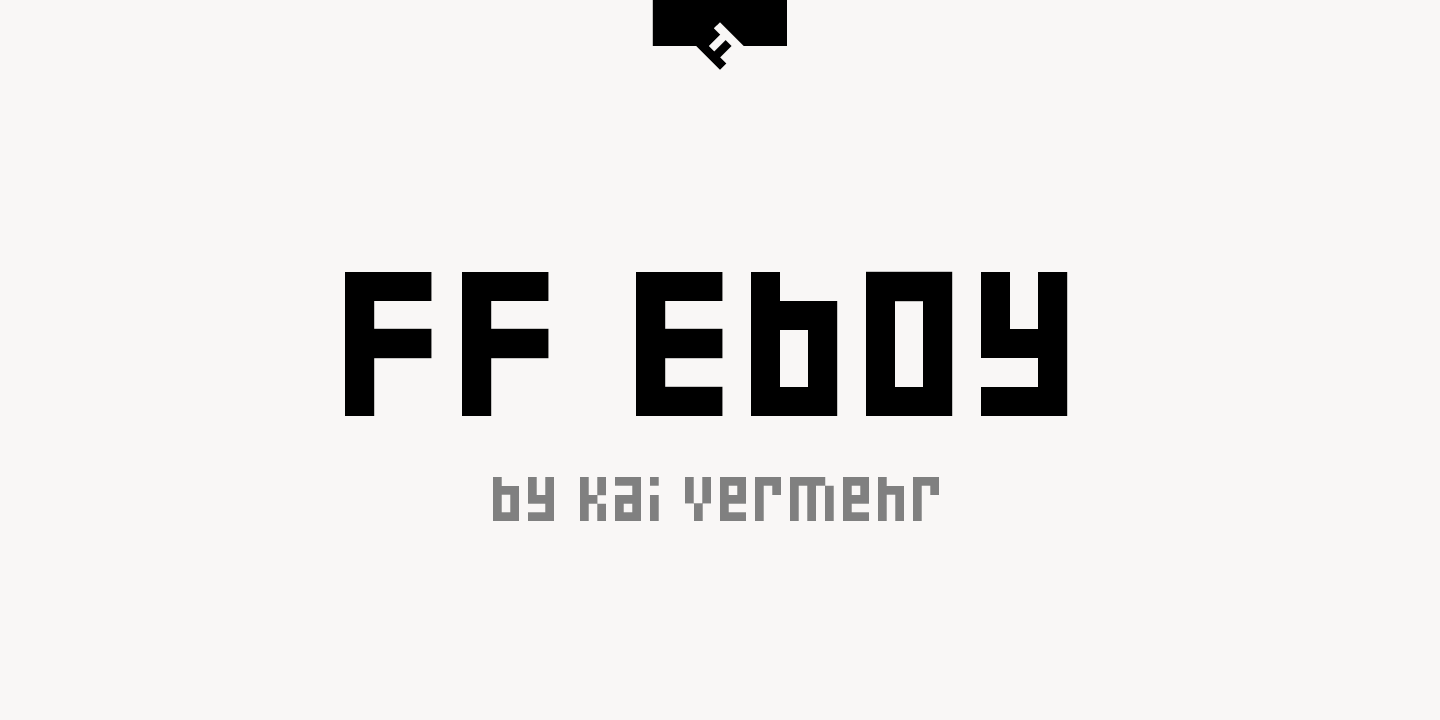
FF Eboy Font is perfect for retro gaming interfaces, pixel art projects, 8-bit video game titles, nostalgic technology branding, digital art exhibitions, indie game development, and cyberpunk aesthetic designs that require authentic pixelated typography.
This font is exciting because it captures the raw energy and digital rebellion of early computer culture, featuring blocky, pixelated letterforms that convey technological nostalgia, digital authenticity, and the pioneering spirit of early gaming while maintaining crisp pixel-perfect clarity.
The FF Eboy Font family includes regular and bold weights with bitmap variants, offering uppercase and lowercase letters, digital numerals, pixel ornaments, gaming symbols, and retro punctuation marks designed for authentic digital aesthetic applications.
Digital artists consistently choose FF Eboy Font Free Download for projects requiring authentic pixel art character and retro gaming appeal. This distinctive typeface transforms modern digital communications into compelling statements of gaming heritage that immediately resonate with audiences seeking genuine retro gaming authenticity and digital art culture. The font's pixelated character makes it exceptionally effective for indie game studios, digital art galleries, and tech nostalgia brands where authentic 8-bit aesthetics and gaming culture must be communicated through every visual element. Its digital heritage bridges classic arcade gaming with contemporary pixel art movements, making it invaluable for brands celebrating gaming history and digital creativity. The precisely crafted pixel letterforms maintain their authentic appeal across digital screens and printed materials, ensuring consistent brand recognition and gaming atmosphere. Whether you're developing indie game interfaces, creating digital art festival materials, or designing retro tech brand identities, this typeface provides the authentic voice and visual nostalgia that distinguishes genuine gaming culture from superficial retro trends, establishing immediate connection with gaming enthusiasts who appreciate authentic 8-bit heritage and understand the foundational importance of early computer graphics in modern digital art and gaming culture.